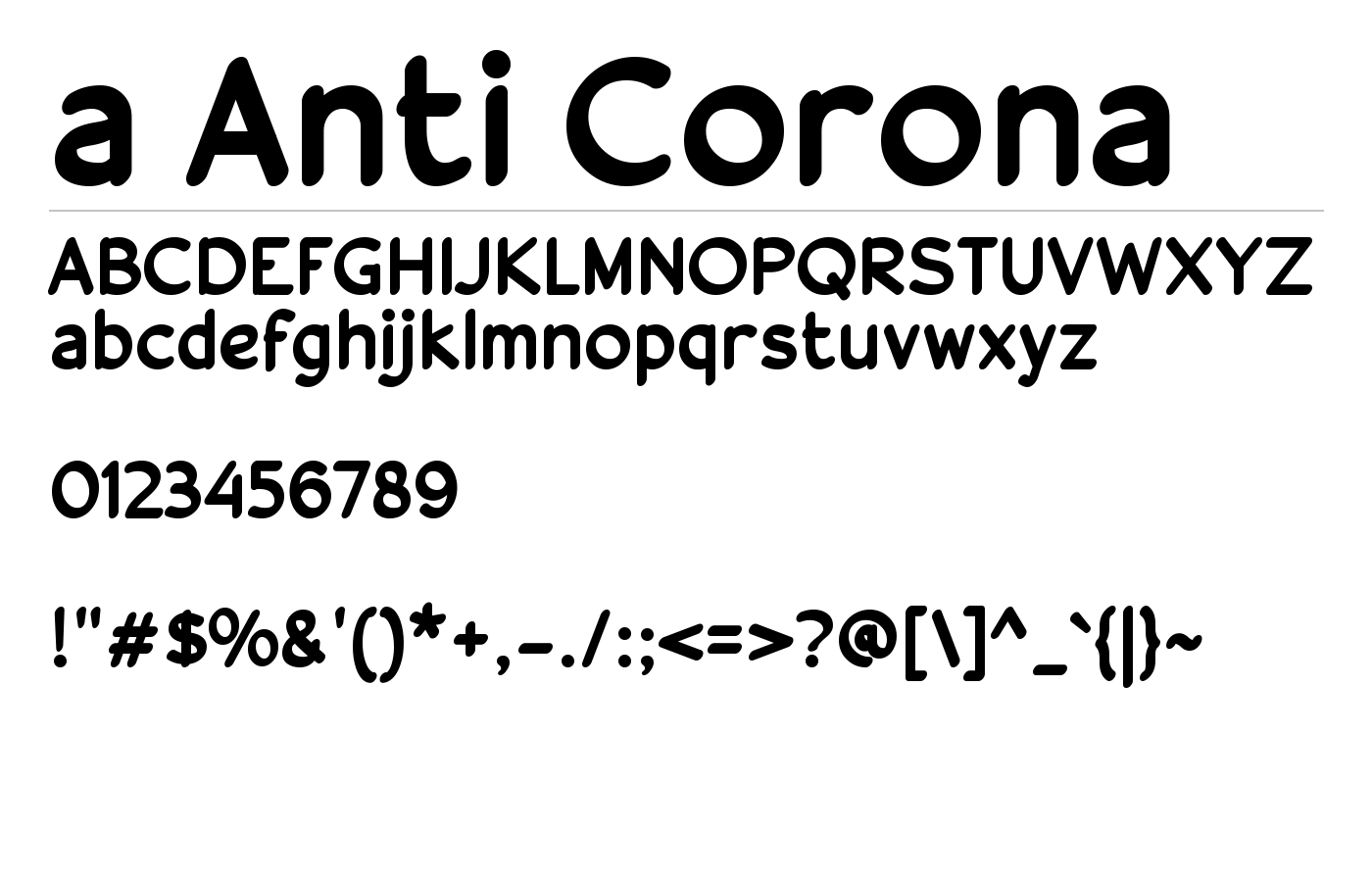
Anti Corona is a rounded sans serif font with a friendly and approachable vibe, featuring regular weight and moderate contrast between its smooth, curved strokes. Its tall x-height and slightly condensed letterforms enhance readability, making it a versatile choice for both display and body text in casual or modern design contexts. This font works well in branding, signage, and digital media where a warm, informal tone is desired without sacrificing clarity.
a Anti Corona Font